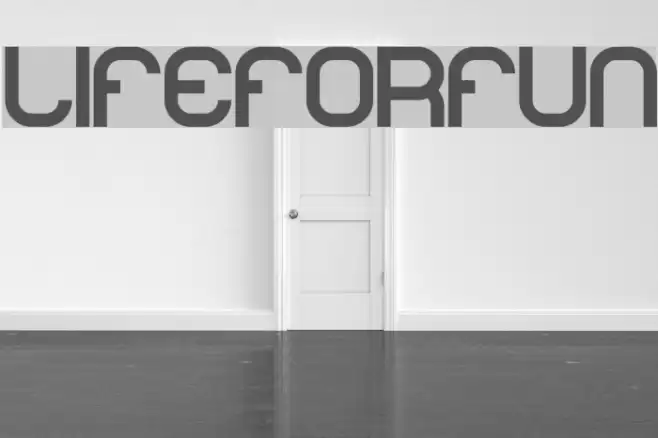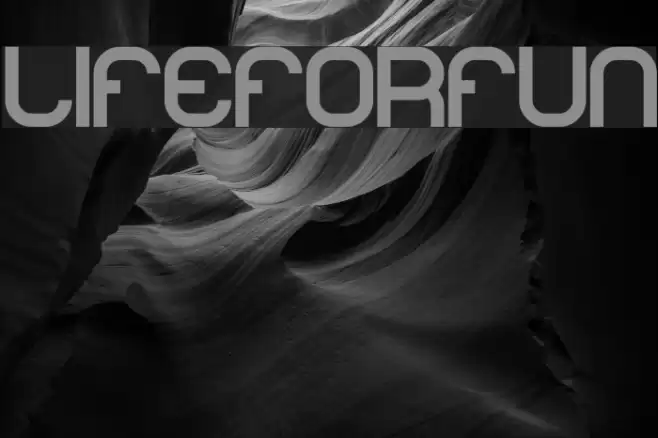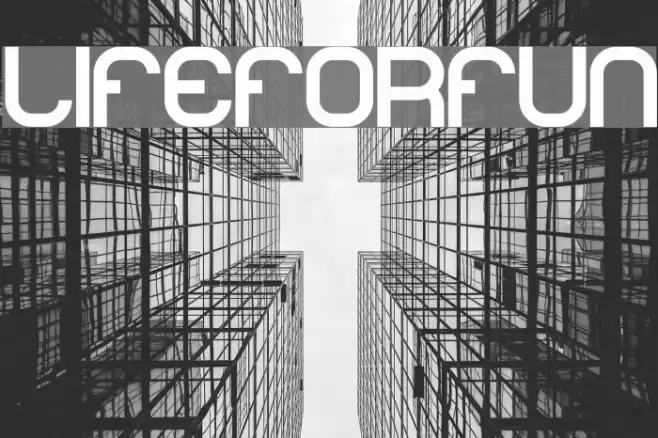
lifeforfun Font
lifeforfun Description
This font features a modern and geometric design with clean lines and a futuristic aesthetic. The characters are constructed with a consistent stroke width, giving it a uniform appearance. The uppercase letters are particularly distinctive, with unique shapes that incorporate rounded edges and straight lines, creating a harmonious balance. The lowercase letters maintain the same geometric style, ensuring readability while adding a touch of elegance. The numbers and special characters are designed to match the overall style, making this font versatile for various applications.
A modern, geometric font with clean lines and a futuristic aesthetic from Uncategorized fonts.
- Proposed Projects: Ideal for technology branding, modern website headers, and innovative product packaging.